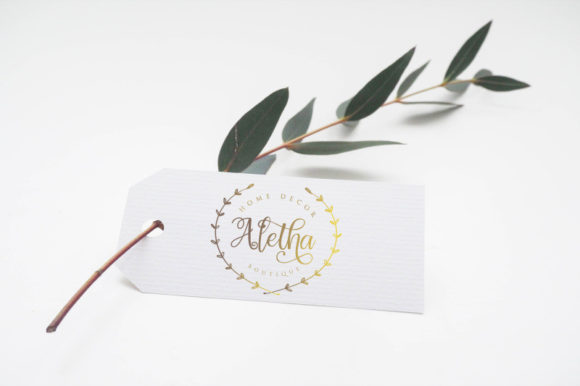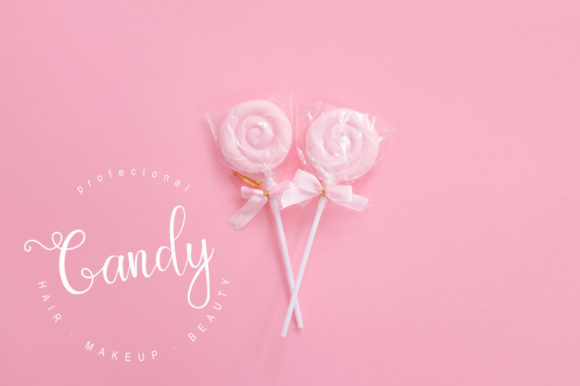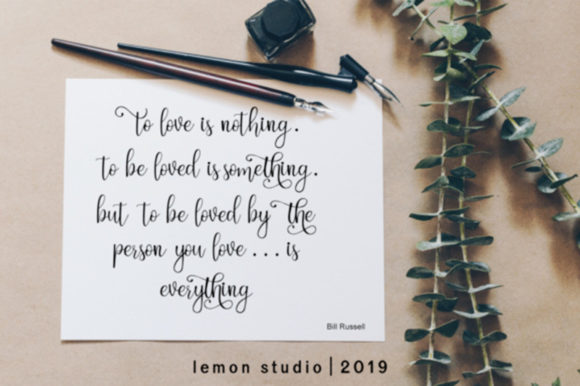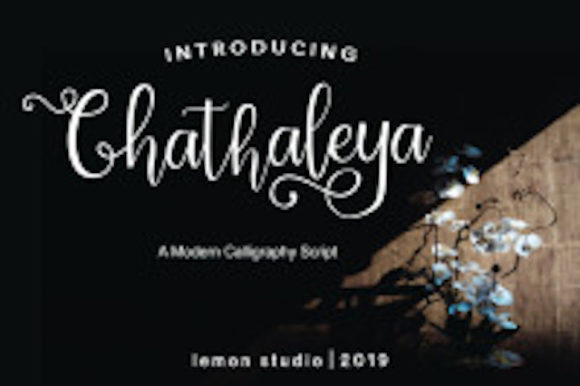
Introducing Chathaleya Font: Elevate Your Designs with Timeless Elegance
In the world of design, fonts play a pivotal role in conveying messages, evoking emotions, and creating lasting impressions. For designers and crafters seeking a unique and beautiful touch for their projects, Chathaleya Font emerges as an exceptional choice. This highly detailed and timeless handwritten font is engineered to breathe life into your designs, making it the perfect fit for crafting eye-catching logos, branding materials, and inspirational quotes.
The Unique Charm of Chathaleya Font
What sets Chathaleya Font apart is its distinctive, handcrafted aesthetic. Every letter in the Chathaleya Font family is meticulously designed to carry a unique and beautiful touch. This individuality ensures that your designs don’t just communicate a message; they tell a story with elegance and sophistication. Whether you’re working on a logo that needs to stand out, a brand identity that requires a personal touch, or a quote that aims to inspire, Chathaleya Font provides the versatility and charm to make your project memorable.
For designers and crafters, finding the right font can often be a daunting task. The font needs to resonate with the project’s theme, appeal to the target audience, and reflect the desired image or message. Chathaleya Font checks all these boxes and more. Its highly detailed and timeless nature ensures that it remains relevant across various design projects and trends. Moreover, its handwritten quality adds a personal and approachable feel, making it suitable for a wide range of applications, from digital media to print materials.
Applications of Chathaleya Font
The versatility of Chathaleya Font makes it an invaluable asset for numerous design applications:
- Logos and Branding: Create distinctive and memorable logos that capture the essence of your brand. Chathaleya Font’s unique touch helps in establishing a strong brand identity.
- Quotes and Inspirational Content: Add a touch of elegance and inspiration to your quotes. The font’s readability and aesthetic appeal make it perfect for social media posts, banners, and printed materials.
- Marketing Materials: Elevate your marketing materials, such as brochures, flyers, and posters, with a font that draws attention and communicates your message effectively.
- Digital Content: For bloggers, content creators, and digital marketers, Chathaleya Font offers a sophisticated way to present written content, enhancing the reader’s experience.
Why Choose Chathaleya Font?
Choosing Chathaleya Font for your design projects comes with several advantages:
- Timeless Appeal: Unlike trendy fonts that may become obsolete, Chathaleya Font boasts a timeless quality that ensures your designs remain relevant.
- Highly Detailed: The font’s intricate details contribute to its elegance, making it suitable for projects where presentation is paramount.
- Versatility: Its application spans across various design needs, making it a versatile addition to your font library.
- Emotional Connection: The personal touch of a handwritten font helps in creating an emotional connection with your audience.
Chathaleya Font is more than just a typeface; it’s a design element that can transform your projects with its timeless elegance and unique charm. Whether you’re a designer looking to elevate your branding and advertising materials or a crafter aiming to add a personal touch to your creations, Chathaleya Font offers the perfect blend of beauty, versatility, and emotional appeal. By incorporating Chathaleya Font into your design toolkit, you’re not just choosing a font; you’re embracing a design philosophy that values individuality, elegance, and connection.
Make your designs come alive with the distinctive and beautiful touch of Chathaleya Font. Experience the difference it can make in your projects and discover why it’s becoming a favorite among designers and crafters seeking to leave a lasting impression.